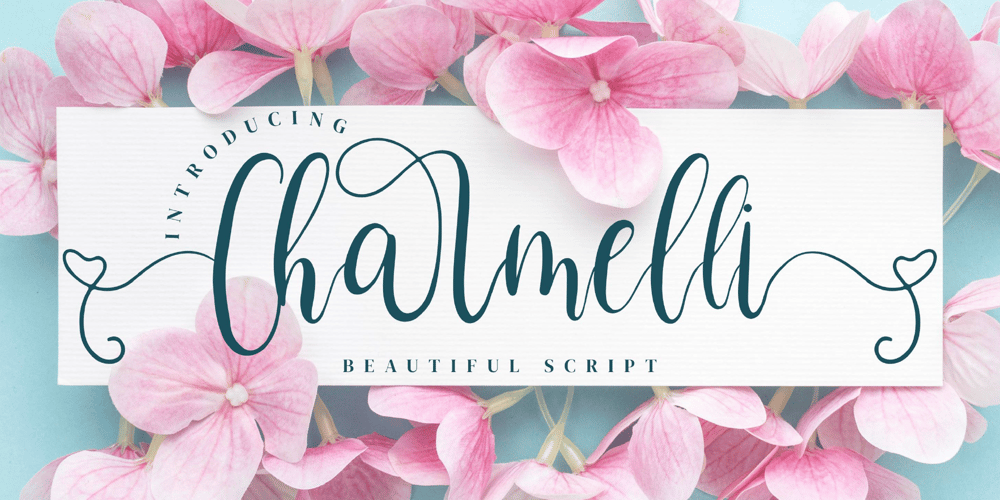
Charmelli
Charmelli font
Charmelli Font Family was designed by Dimas Alif Maulana and published by Integritype. Charmelli contains 2 styles and family package options. Charmelli is a chic, refined script font that emanates sophistication and elegance. Its stylish alternates and ligatures make this font the perfect match for any project.This font is PUA encoded which means you can access all of the glyphs and swashes with ease!